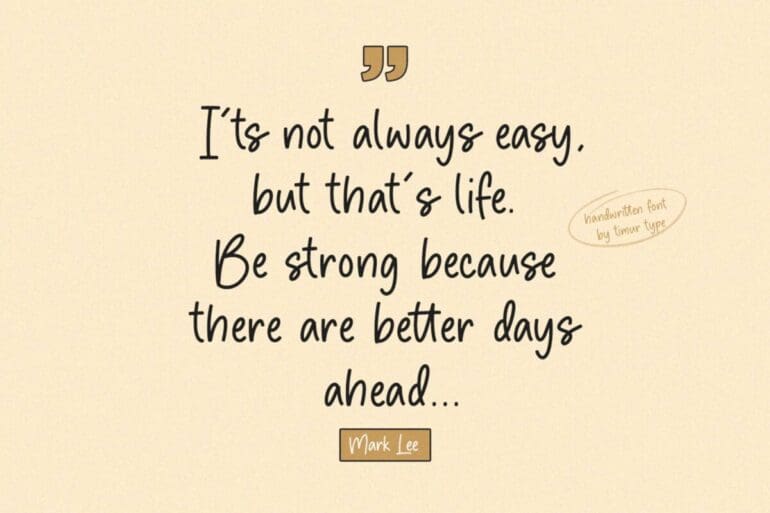
Simple Games Font
Simple Games is a lovely handwritten font that was created with great care, especially for you! 😊 Simple Games is perfect for product packaging, branding project, magazines, social media, weddings, or just used to express words above the background.